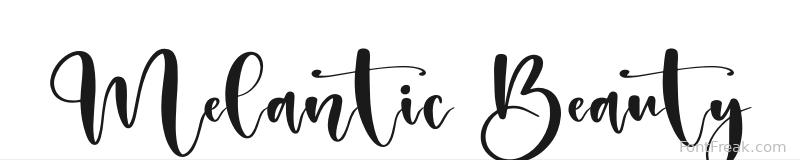
Melantic Beauty
Melantic Beauty Italic
Melantic Beauty is an elegant script font designed by Perspectype Studio in 2021. This font falls into the decorative category, characterized by its fluid and graceful lines that evoke a sense of sophistication and charm. The strokes exhibit a medium weight with subtle variations, creating a pleasing contrast that enhances its overall visual appeal. The spacing between the letters is carefully calculated to ensure readability while maintaining a flowing, connected style. Decorative elements such as swirls and loops add a touch of whimsy, making it perfect for various creative projects.
This font is particularly well-suited for wedding invitations, where its romantic flair can beautifully convey heartfelt sentiments. It also shines on greeting cards, offering a personal touch that resonates with recipients. Restaurant menus can benefit from Melantic Beauty’s stylish appearance, presenting dishes in an inviting and trendy manner. Additionally, it can enhance branding materials for small businesses, especially those in the beauty or lifestyle sectors, where aesthetics play a crucial role. Content creators looking to elevate their social media graphics will find this font to be a compelling choice, as it captures attention and conveys a distinct personality.
In conclusion, Melantic Beauty stands out not only for its artistic qualities but also for its versatility across various applications. The combination of its decorative elements and fluid script style makes it an exceptional choice for anyone aiming to create memorable and visually appealing content. Don't miss the opportunity to explore this stunning typeface with a Melantic Beauty font free download.